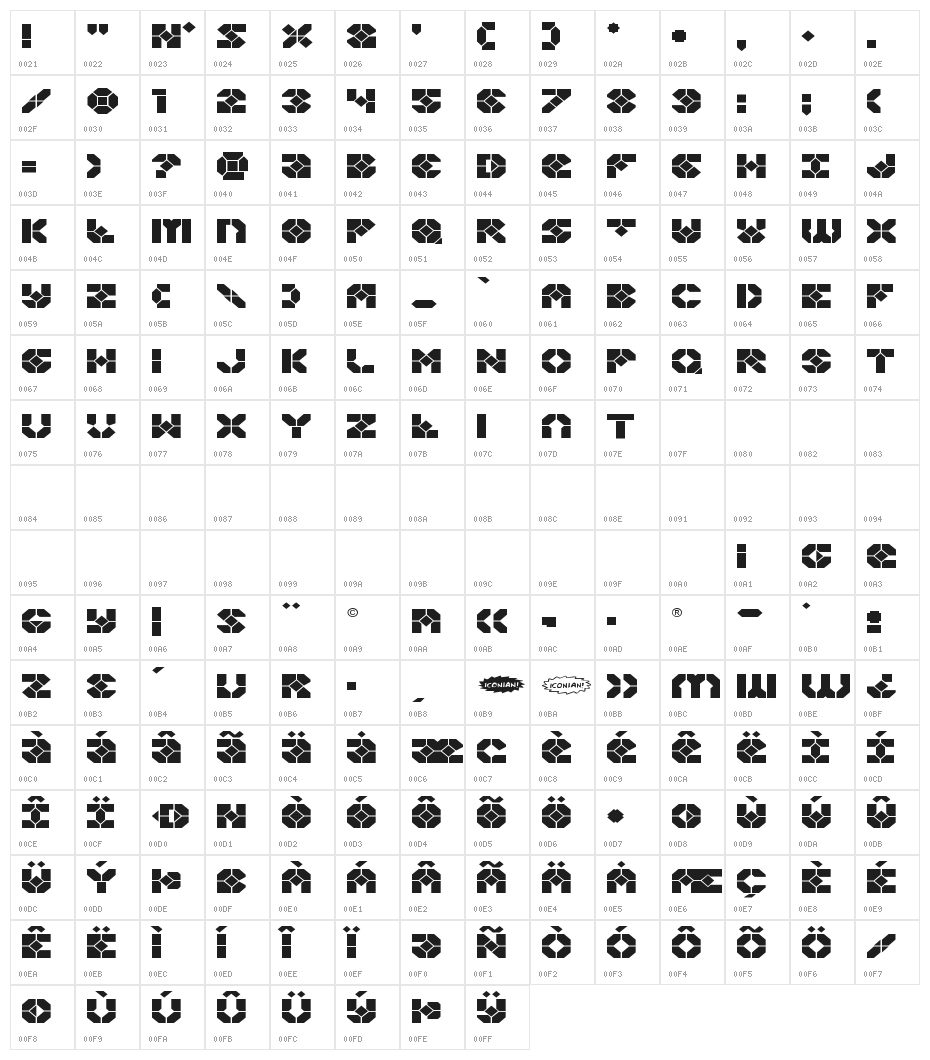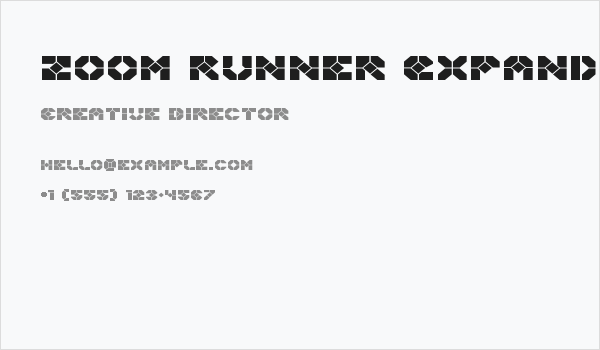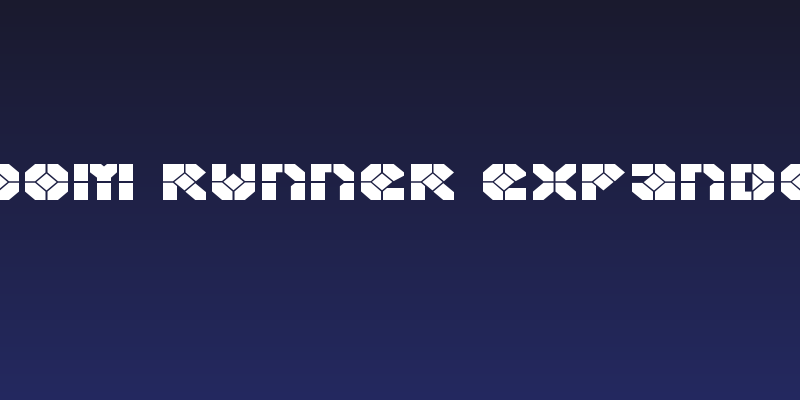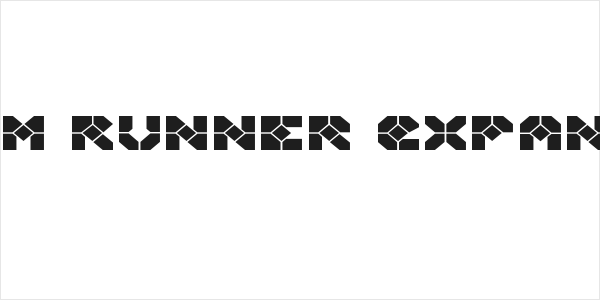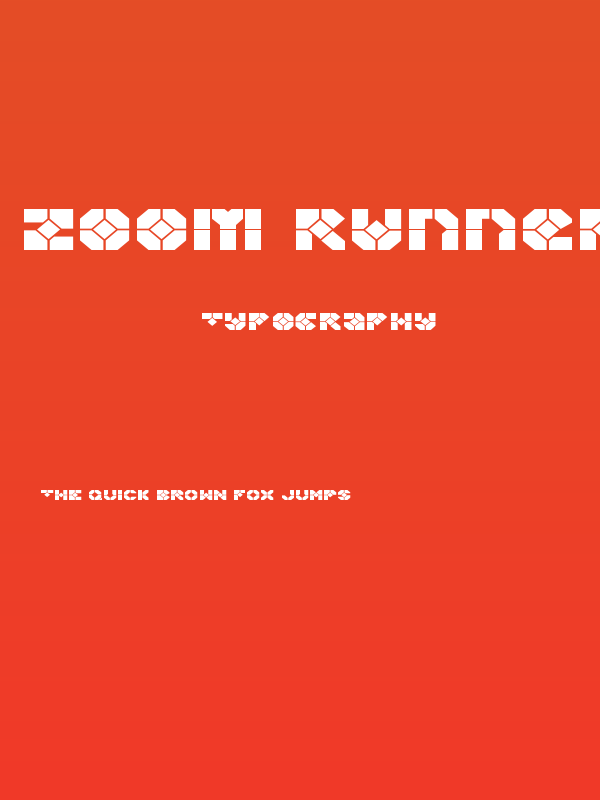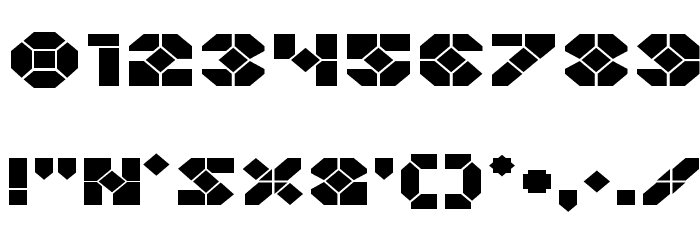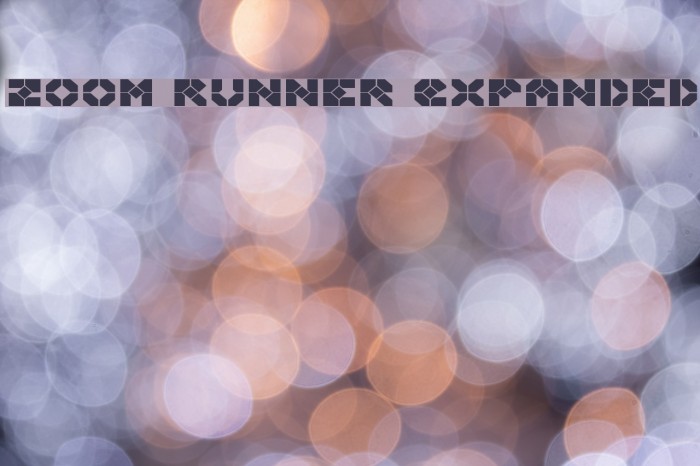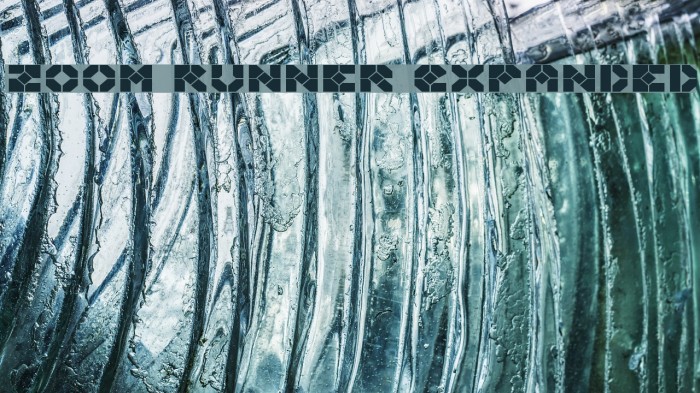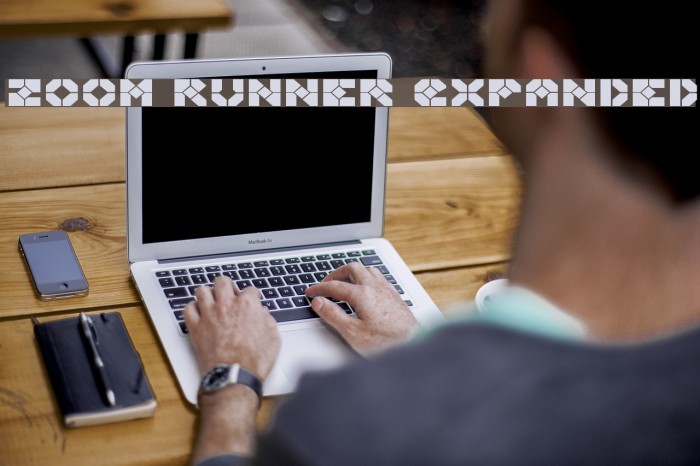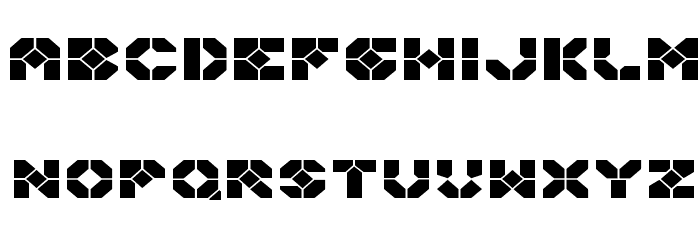
Zoom Runner Expanded Font
Zoom Runner Expanded Description
This font features a bold, geometric design with a futuristic and digital aesthetic. Each character is constructed from a series of angular shapes, creating a blocky and modular appearance. The uppercase and lowercase letters maintain a consistent style, with sharp edges and a uniform thickness throughout. Numbers and special characters follow the same design principles, ensuring a cohesive look across all elements. The font's unique structure makes it stand out, ideal for projects that require a modern and tech-inspired feel.
| Proposed Projects | Ideal for technology branding, video game titles, sci-fi posters, and digital interfaces. |